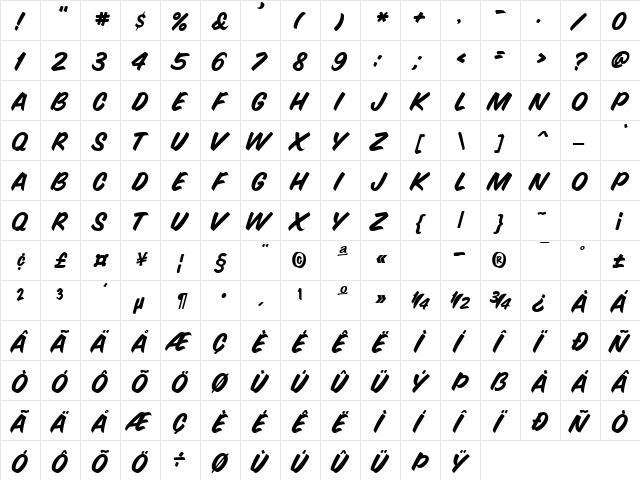
GE Quick Mark Regular
Design Context for GE Quick Mark Typeface
GE Quick Mark is a composed and adaptable typeface that performs quietly and consistently across a wide range of design contexts.